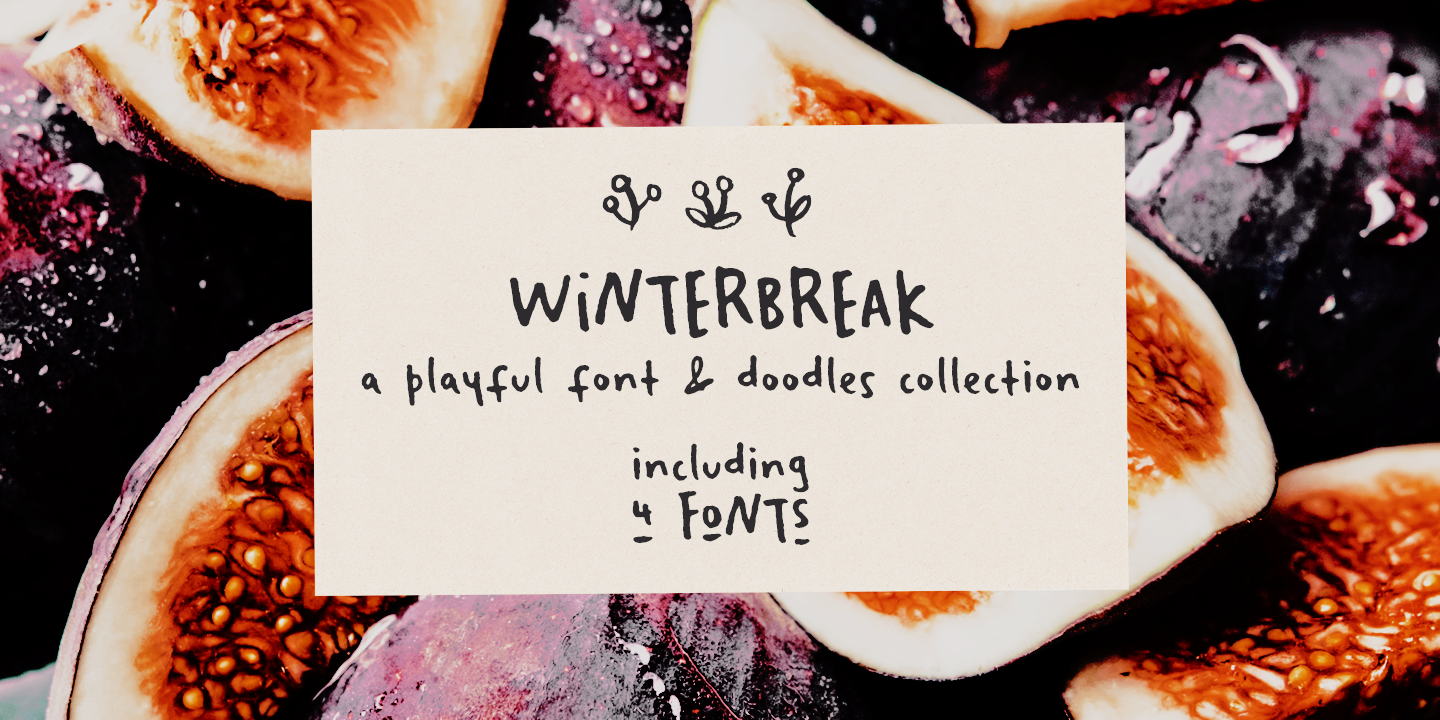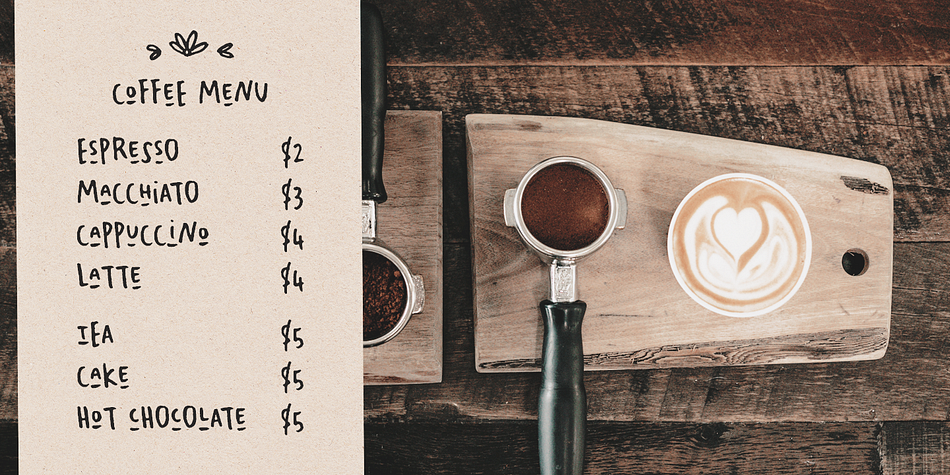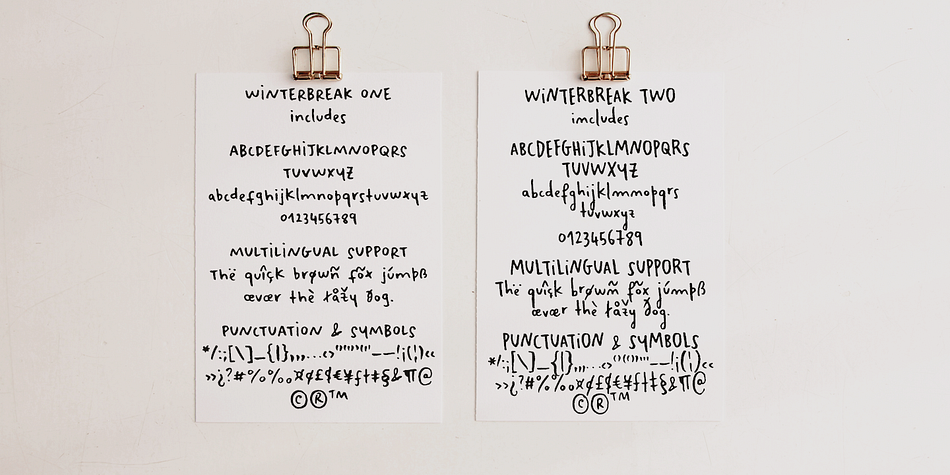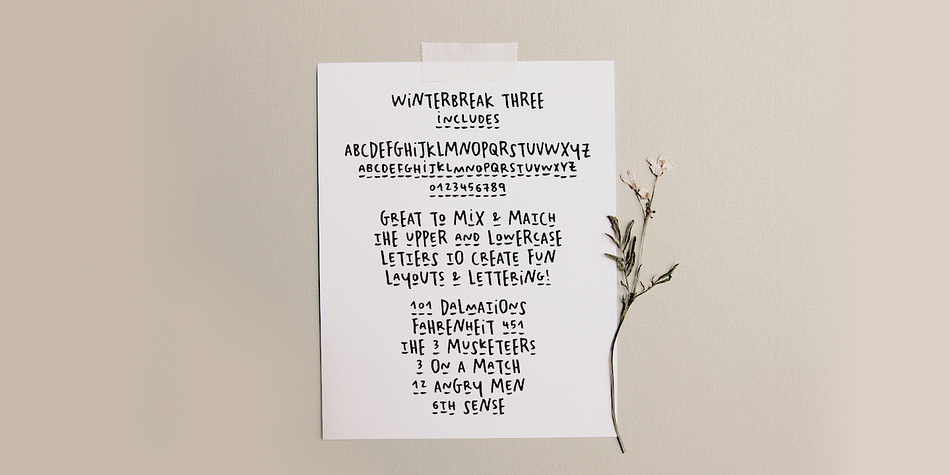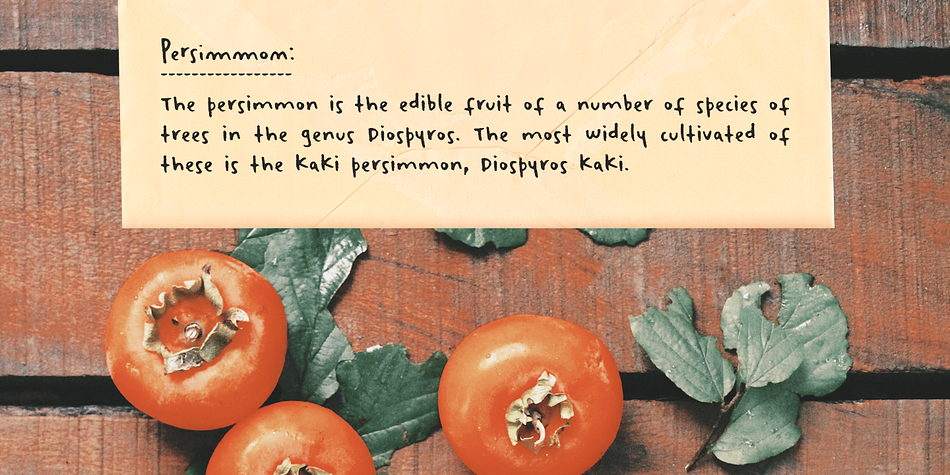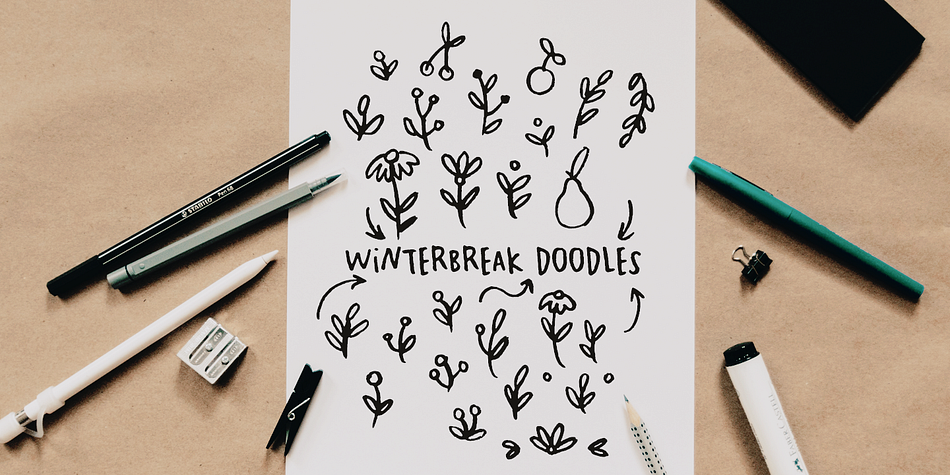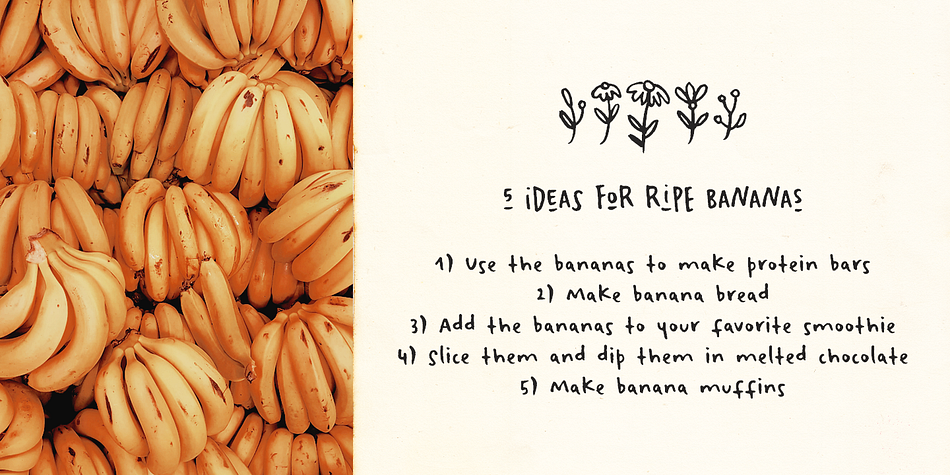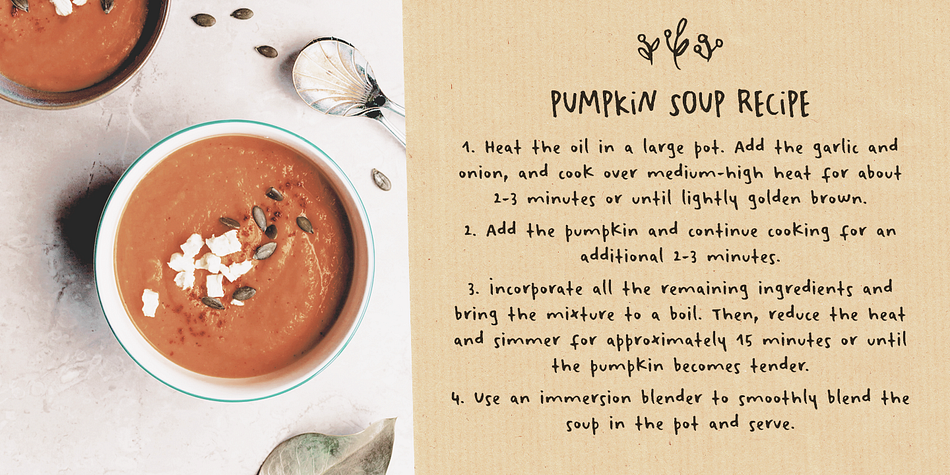
Winterbreak
Designed by Ana Parracho, Winterbreak is a hand drawn and dingbat font family. This typeface has four styles and was published by Ana's Fonts.
Winterbreak is a playfont font and doodles set. It includes:
- 3 variations of the Winterbreak font that can be used together to create interesting hand-lettering compositions
- 1 set of doodles that complement the handwritten fonts perfectly